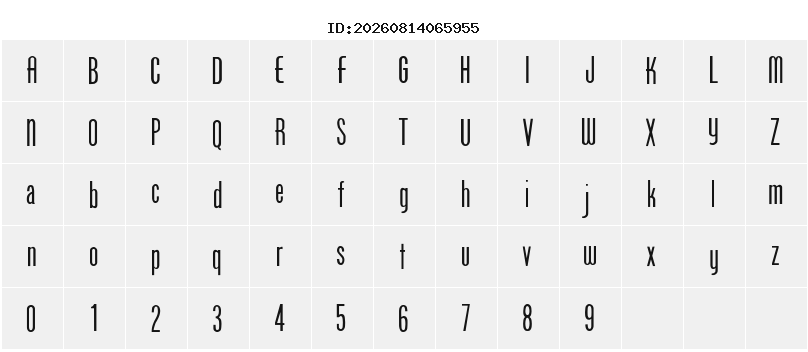
Sunshoe .ttf
About Sunshoe .ttf
Sunshoe .ttf is a modern, elegant sans-serif font designed for ultimate readability and visual harmony. Perfect for branding, headlines, web design, and print materials.